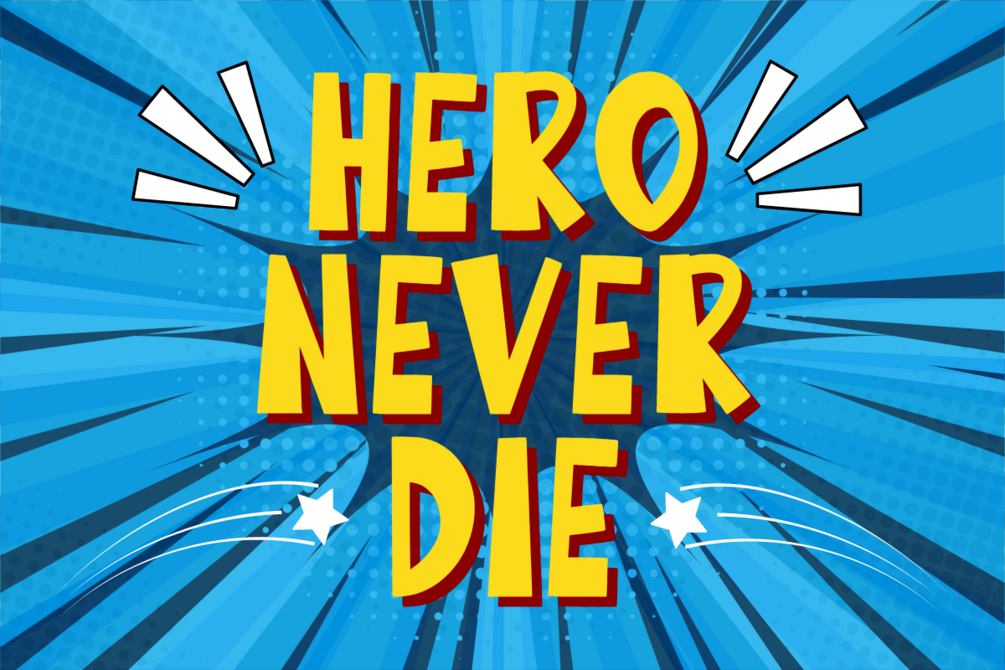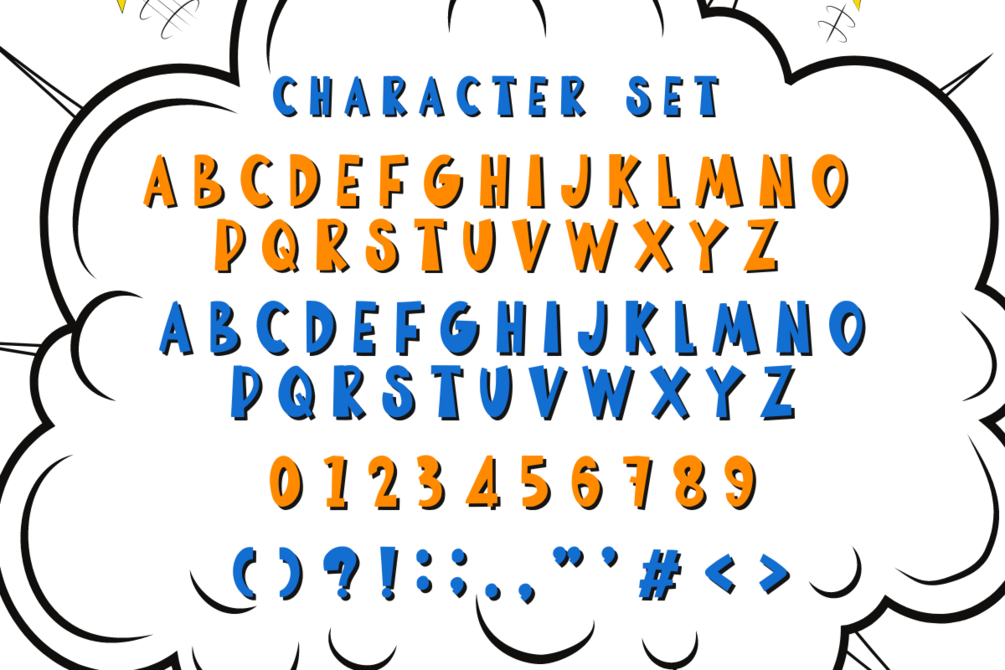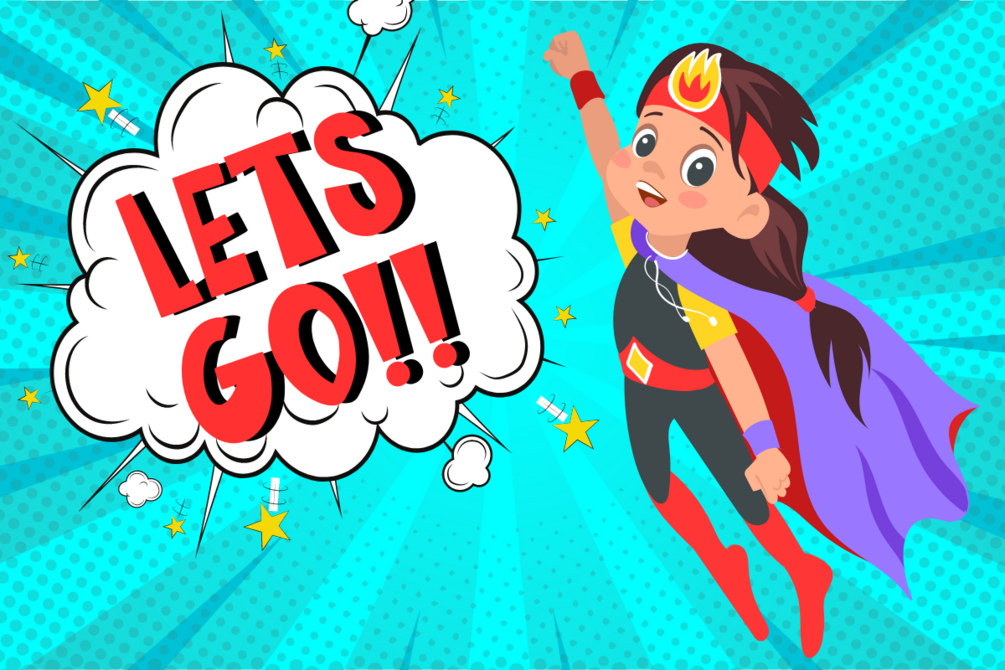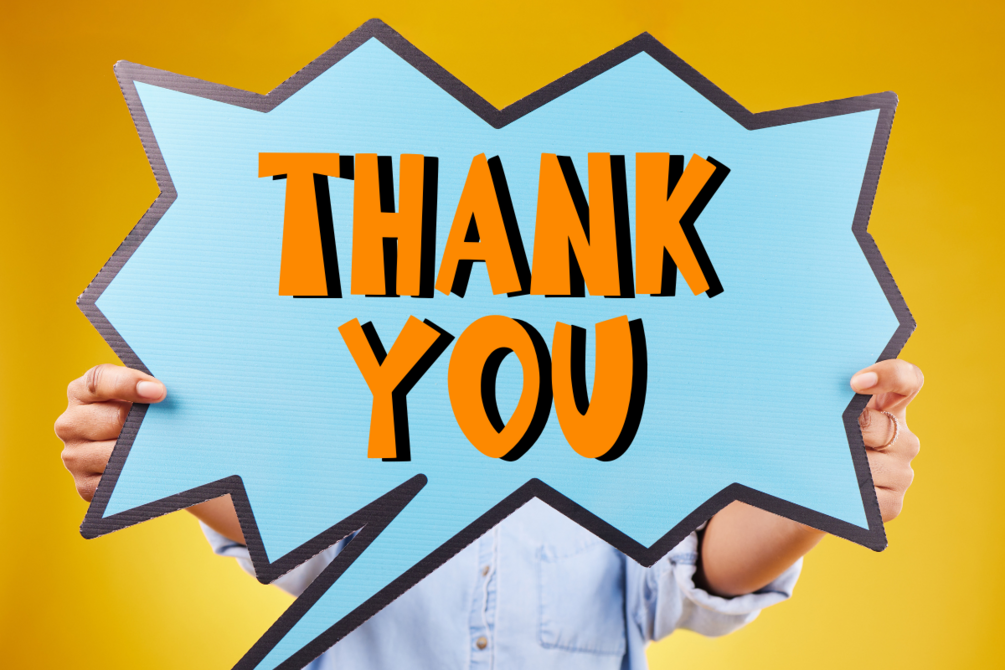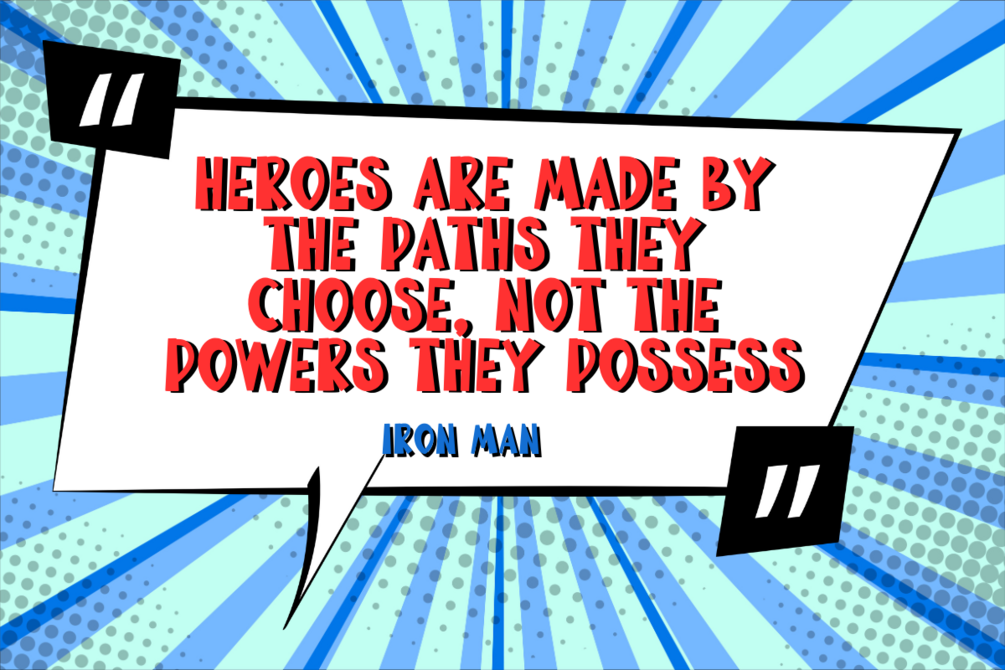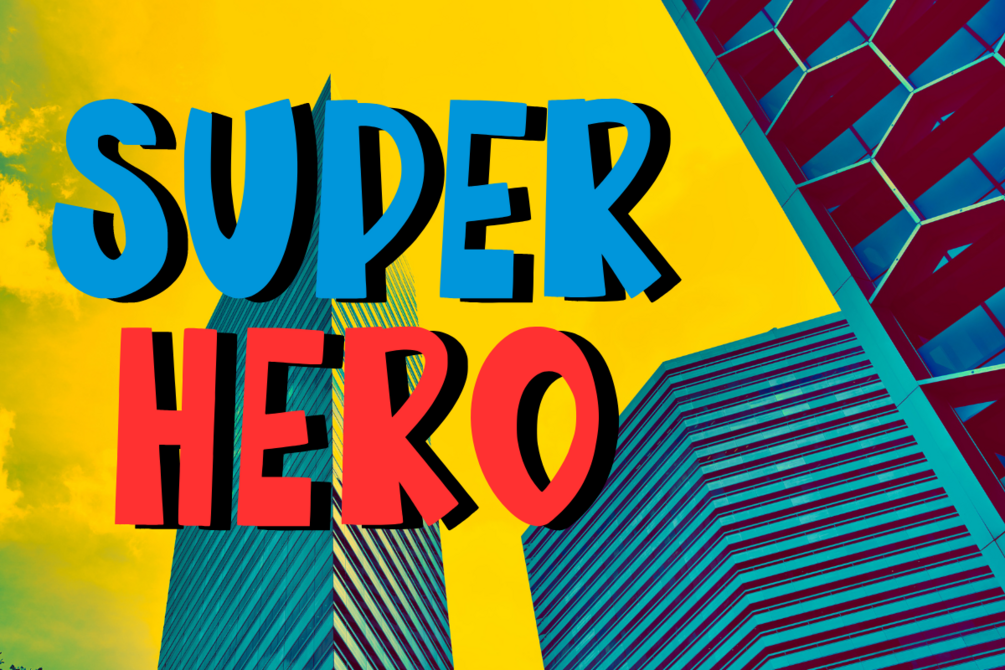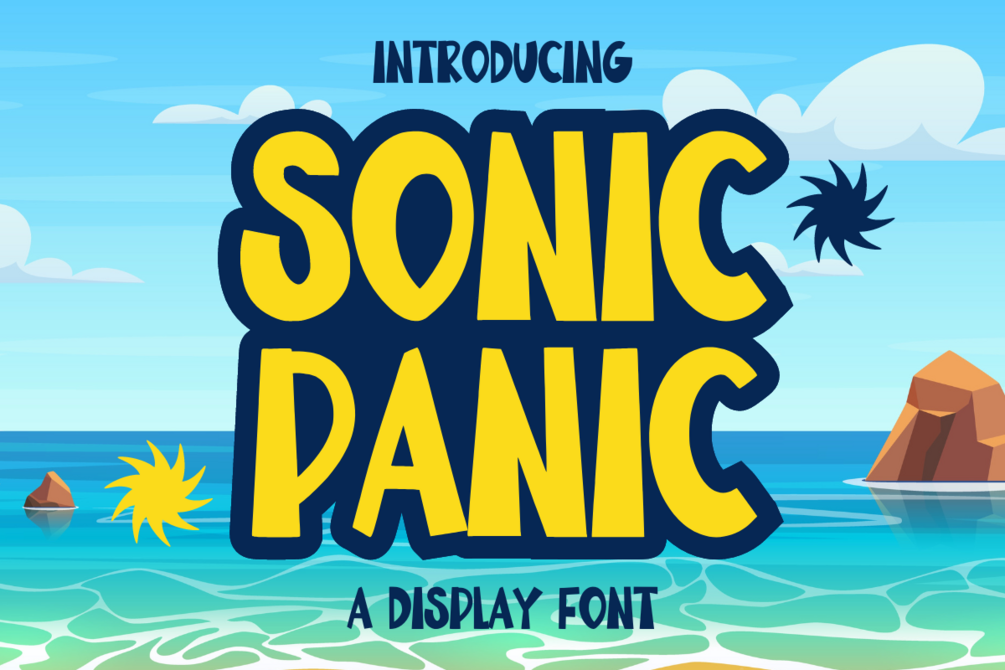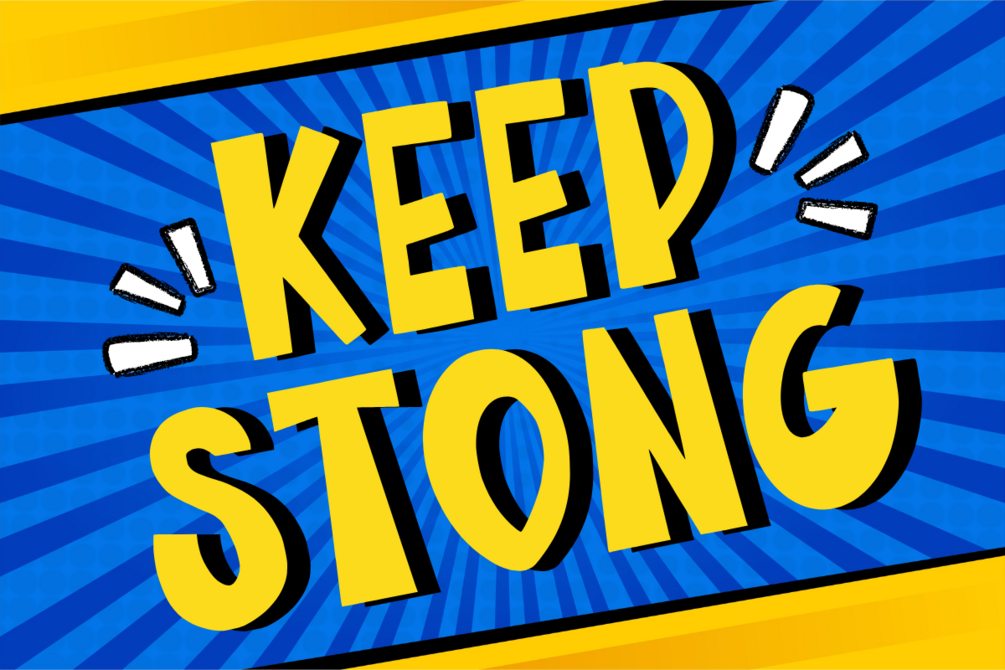
Sonic Panic - A Display Font
Sonic Panic is a cheerful and bold display font. This cartoon-inspired typeface features fun and charming characters, perfect for creating joyful and memorable designs. You can use it for kids’ t-shirts, child-friendly designs, posters, cards, headlines, titles, book covers, apparel, and more.